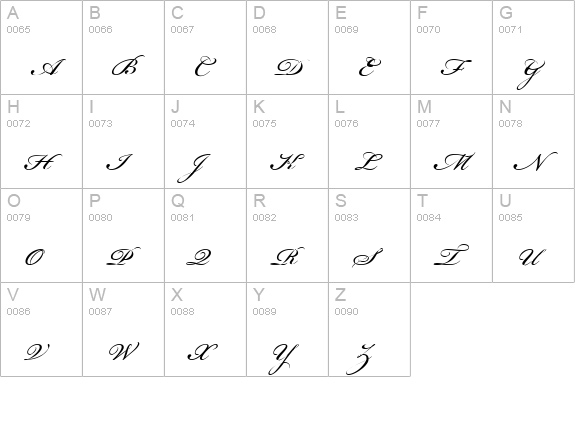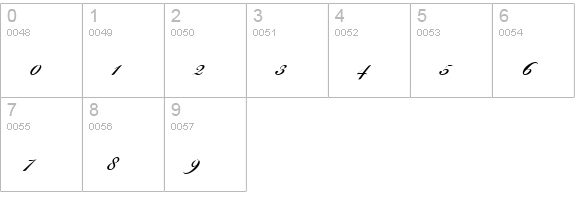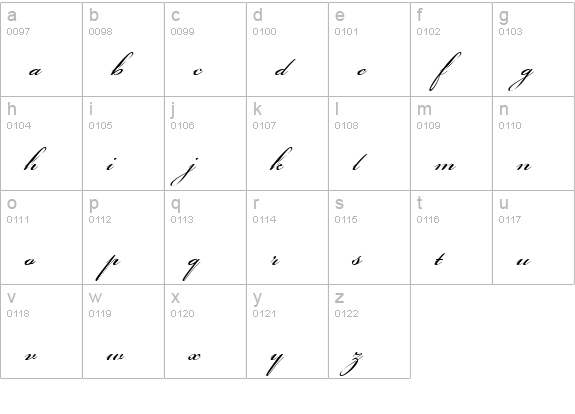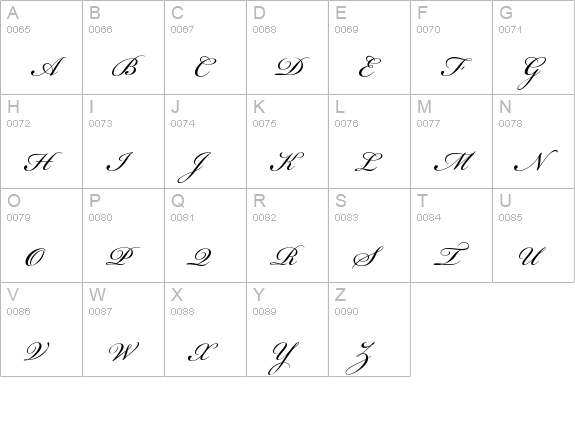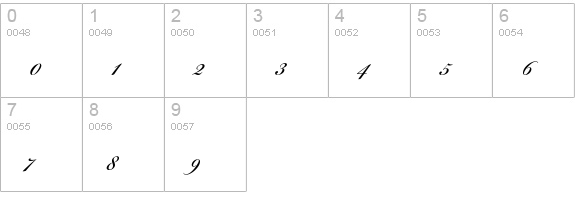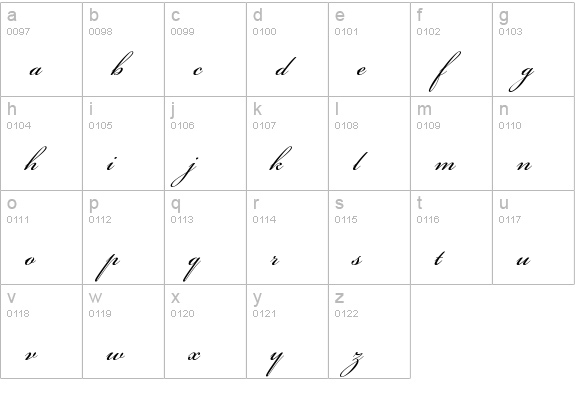
Bickham Script One is a graceful and elegant font that exudes sophistication and charm. Its flowing script style is perfect for adding a touch of luxury to any project, whether it be invitations, branding, or decorative elements. With its delicate curves and intricate details, Bickham Script One is sure to make a statement and leave a lasting impression. The best part about Bickham Script One font is that it is available for free download at FontsMarket.com. This means that you can easily access and use this stunning font for all your creative endeavors without any cost involved. Don't miss out on the opportunity to enhance your designs with the timeless beauty of Bickham Script One font. Download it now and elevate your projects to new heights of elegance and sophistication.